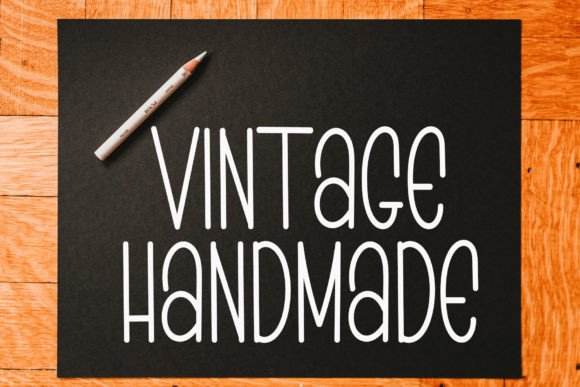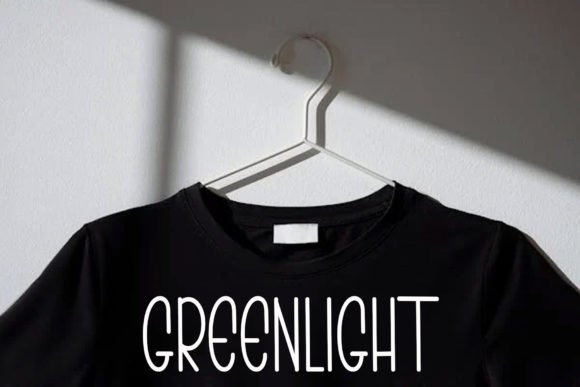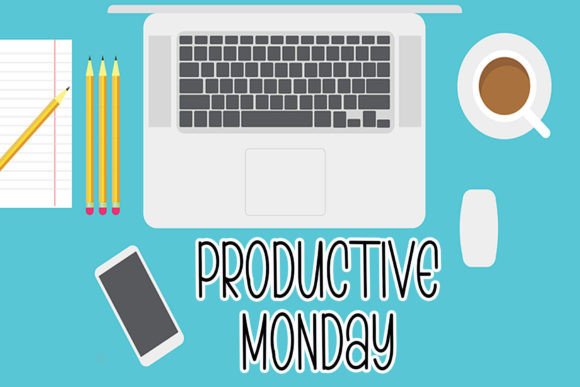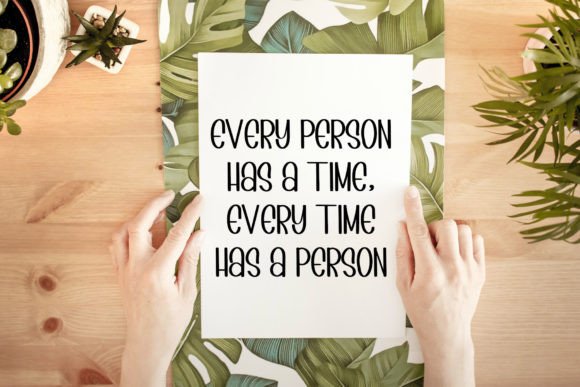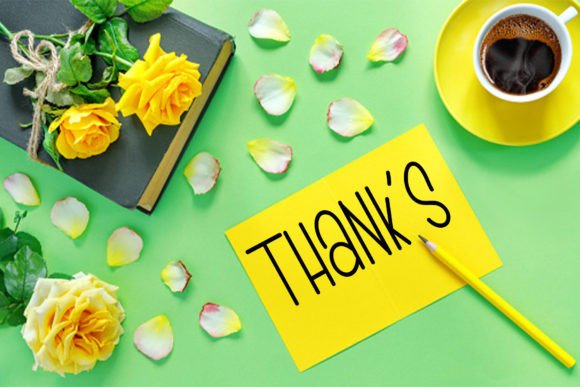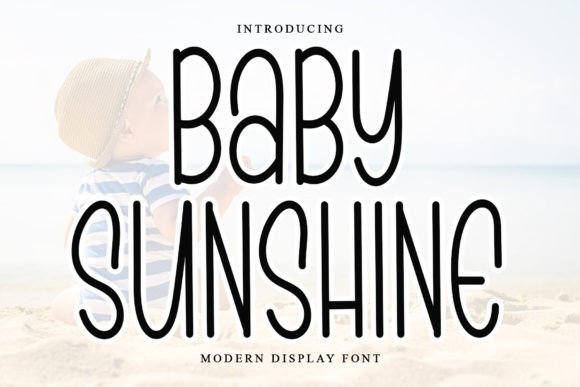
Baby Sunshine Font: The Perfect Addition to Your Creative Projects
Are you a designer, crafter, or DIY enthusiast looking for a font that can add a touch of elegance and whimsy to your creative projects? Look no further than the Baby Sunshine font! This fun handwritten font is carefully crafted to bring a ray of sunshine to your designs, making it perfect for Instagram posts, calligraphy scripts, and a wide range of DIY projects.
What Makes Baby Sunshine Font So Special?
Baby Sunshine font is a unique and elegant handwritten font that is designed to make your creative projects stand out. Its carefully crafted letters are infused with a touch of sophistication, making it perfect for designers and crafters who want to add a personal touch to their work. Whether you’re creating social media graphics, invitations, or DIY crafts, this font is sure to turn your ideas into true pieces of art.
Key Features of Baby Sunshine Font
- Handwritten with love: Baby Sunshine font is carefully handwritten with attention to detail, giving it a personal and unique touch.
- Elegant and whimsical: This font combines elegance and playfulness, making it perfect for a wide range of creative projects.
- Perfect for Instagram: With its trendy and modern look, Baby Sunshine font is ideal for creating engaging Instagram posts and stories.
- Calligraphy scripts: This font is also perfect for calligraphy scripts, adding a touch of sophistication to your DIY projects.
How to Use Baby Sunshine Font in Your Projects
Using Baby Sunshine font in your projects is easy! Here are a few ideas to get you started:
- Social media graphics: Use Baby Sunshine font to create engaging social media graphics, such as Instagram posts and Facebook covers.
- Invitations and cards: Add a personal touch to your invitations and cards with this elegant handwritten font.
- DIY crafts: Use Baby Sunshine font to create beautiful calligraphy scripts for your DIY crafts, such as wood signs, candles, and more.
- Branding and packaging: This font is also perfect for branding and packaging, adding a touch of elegance and sophistication to your products.
Tips and Tricks for Getting the Most Out of Baby Sunshine Font
Here are a few tips and tricks to help you get the most out of Baby Sunshine font:
- Experiment with colors: Try pairing Baby Sunshine font with different colors to create unique and eye-catching designs.
- Mix and match: Combine Baby Sunshine font with other fonts to create interesting and dynamic designs.
- Play with sizes: Experiment with different font sizes to add emphasis and create visual interest in your designs.
In conclusion, Baby Sunshine font is a versatile and elegant handwritten font that is perfect for designers, crafters, and DIY enthusiasts. With its unique blend of whimsy and sophistication, this font is sure to turn your creative ideas into true pieces of art. Whether you’re looking for fonts for Instagram or calligraphy scripts for DIY projects, Baby Sunshine font is the perfect addition to your creative toolkit.
Get Ready to Shine with Baby Sunshine Font!